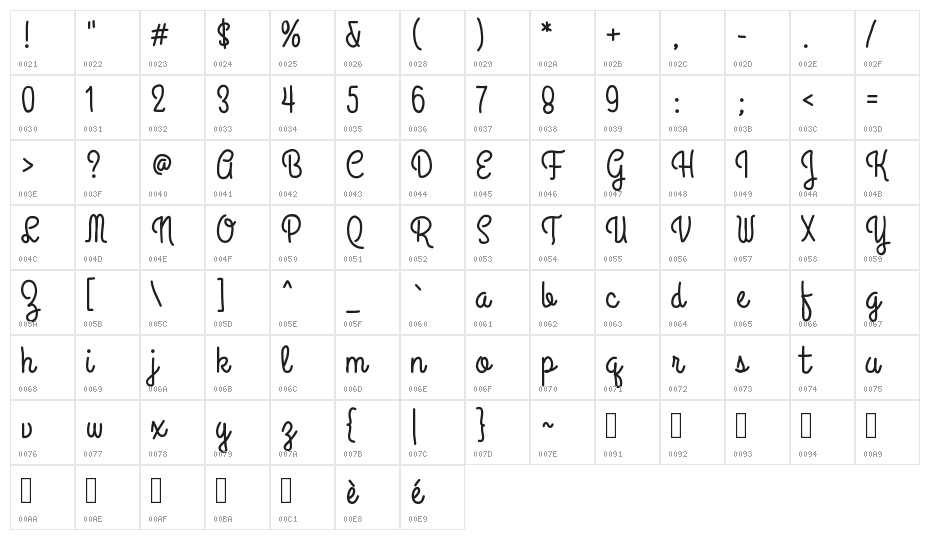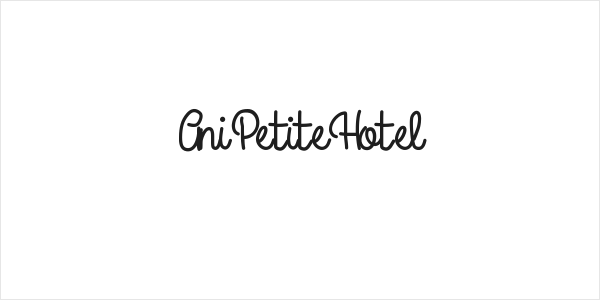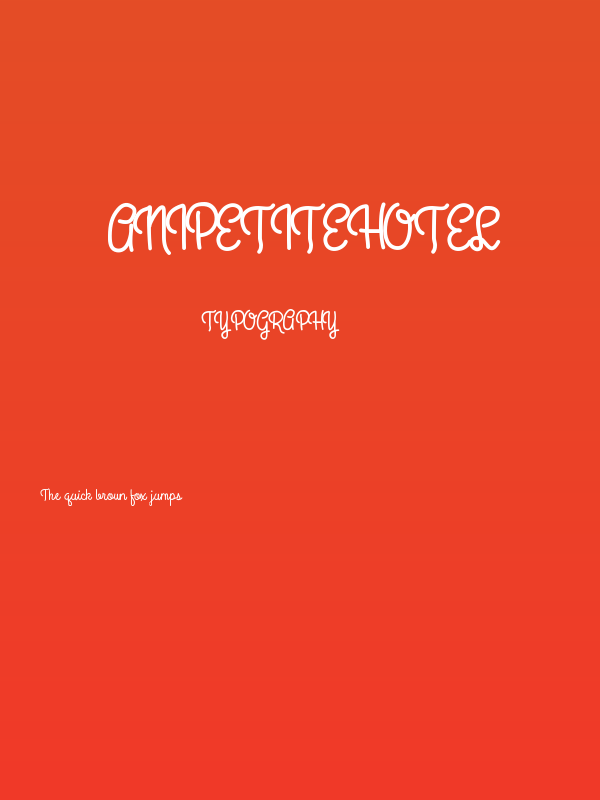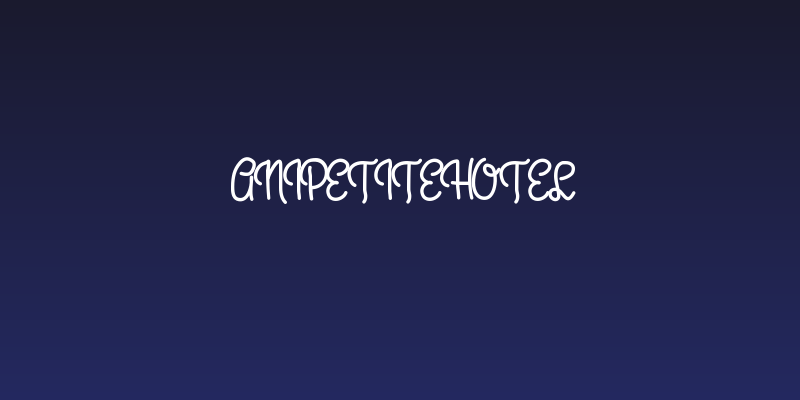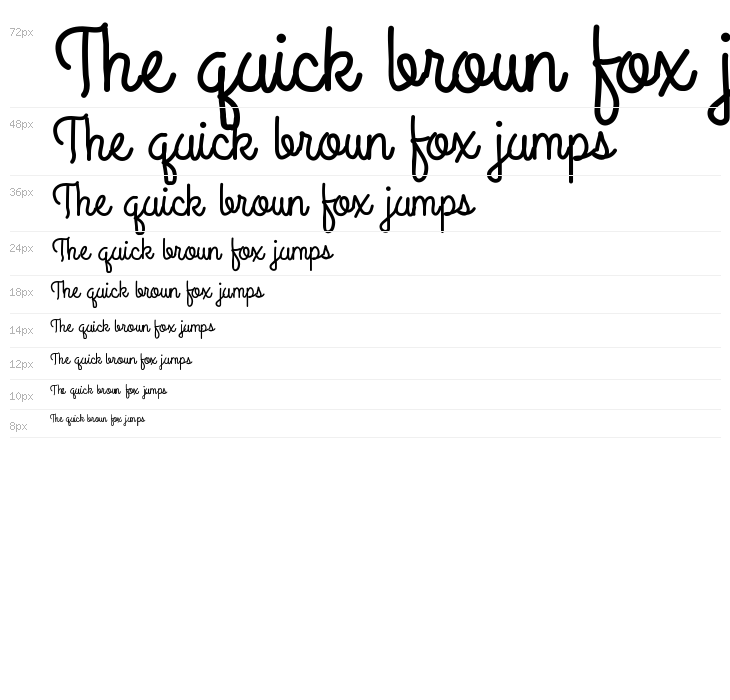
AniPetiteHotel Font
AniPetiteHotel Description
This font features a playful and whimsical handwritten style, characterized by its smooth, flowing curves and loops. The letters are interconnected, giving it a cohesive and fluid appearance. The uppercase letters maintain a consistent height, while the lowercase letters vary slightly in size, adding to its casual charm. The numerals and special characters are designed to match the overall aesthetic, with rounded edges and a friendly demeanor. This font exudes a sense of creativity and informality, making it perfect for projects that require a personal touch.